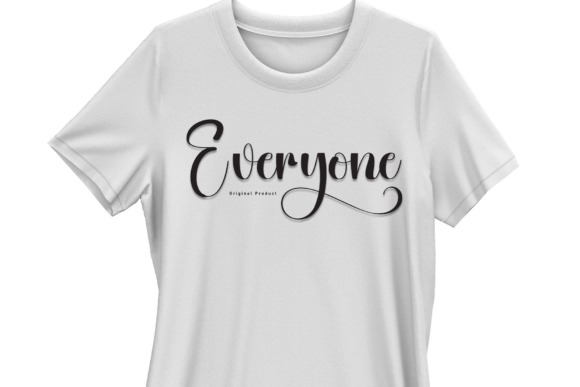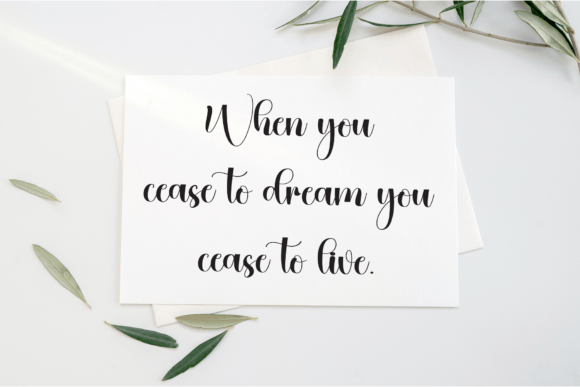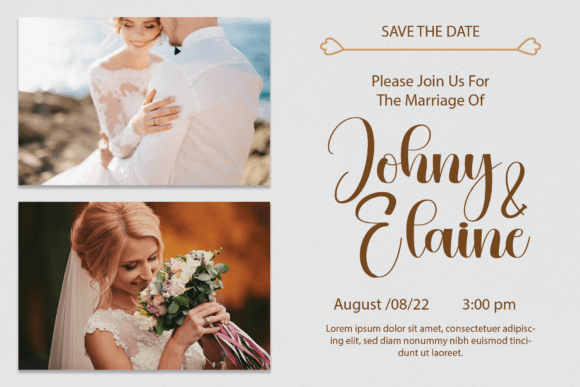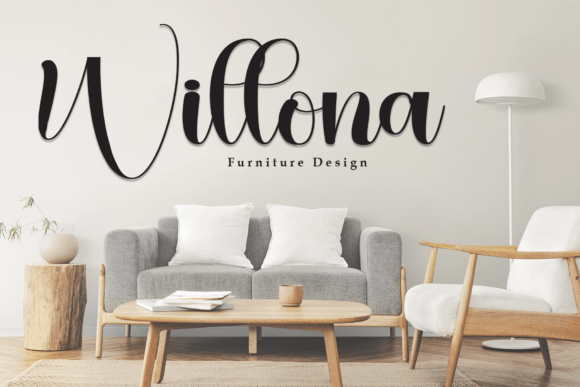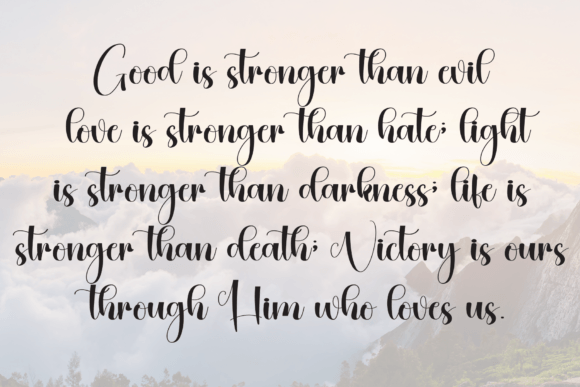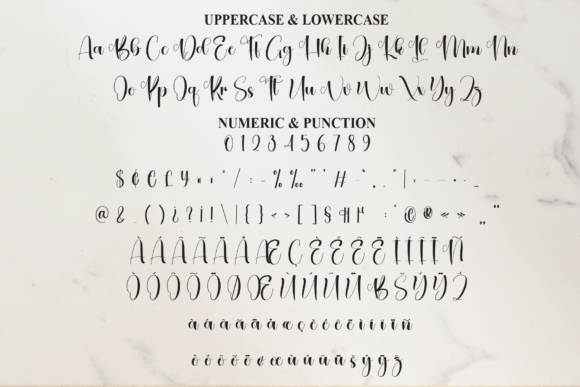
Introducing Eighties Font: The Ultimate Guide to a Stylish and Dynamic Handwritten Font
The Eighties font has taken the design world by storm with its unique blend of bold and thin lines, giving it a stylish and dynamic look. This handwritten font is perfect for designers and crafters looking to add a touch of personality to their designs. In this comprehensive article, we’ll dive into the world of Eighties font, exploring its features, benefits, and uses.
What is Eighties Font?
Eighties is a handwritten font that combines bold and thin lines, creating a visually appealing contrast that adds depth and interest to any design. Its unique, casual feel makes it perfect for a wide range of projects, from creative branding and advertising to social media graphics and crafting projects.
Key Features of Eighties Font
- Bold and Thin Lines: The Eighties font features a distinctive combination of bold and thin lines, giving it a stylish and dynamic look.
- Handwritten Style: This font has a unique, handwritten feel that’s perfect for adding a personal touch to your designs.
- Highly Versatile: Eighties font can be used for a wide range of projects, from creative branding and advertising to social media graphics and crafting projects.
- Easily Readable: Despite its bold and thin lines, the Eighties font is highly readable, making it perfect for both digital and print designs.
Benefits of Using Eighties Font
So, why should you choose Eighties font for your next design project? Here are just a few benefits of using this stylish and dynamic font:
- Adds Personality: The Eighties font has a unique, casual feel that adds personality to your designs, helping you stand out from the crowd.
- Highly Versatile: This font can be used for a wide range of projects, making it a great addition to any designer’s toolkit.
- Easy to Read: The Eighties font is highly readable, making it perfect for both digital and print designs.
- Great for Branding: The Eighties font is perfect for creative branding and advertising projects, helping you create a unique and memorable brand identity.
Uses of Eighties Font
The Eighties font is highly versatile and can be used for a wide range of projects, including:
- Branding and Advertising: Use the Eighties font to create unique and memorable brand identities, logos, and advertising campaigns.
- Social Media Graphics: Add a touch of personality to your social media graphics, including Facebook posts, Twitter headers, and Instagram stories.
- Crafting Projects: The Eighties font is perfect for crafting projects, including handmade cards, scrapbooking, and DIY decor.
- Digital Designs: Use the Eighties font in digital designs, including website headers, email newsletters, and digital invitations.
Tips for Using Eighties Font
Here are a few tips for getting the most out of the Eighties font:
- Experiment with Colors: The Eighties font looks great in a wide range of colors, so don’t be afraid to experiment and find the perfect color scheme for your design.
- Use it with Images: The Eighties font pairs perfectly with images, so try using it with photos, illustrations, or graphics to add depth and interest to your design.
- Mix and Match: Don’t be afraid to mix and match the Eighties font with other fonts to create a unique and visually appealing design.
In conclusion, the Eighties font is a stylish and dynamic handwritten font that’s perfect for designers and crafters looking to add a touch of personality to their designs. With its unique blend of bold and thin lines, highly versatile design, and easily readable style, the Eighties font is a great addition to any designer’s toolkit. Whether you’re working on a branding project, social media graphics, or crafting project, the Eighties font is sure to impress.